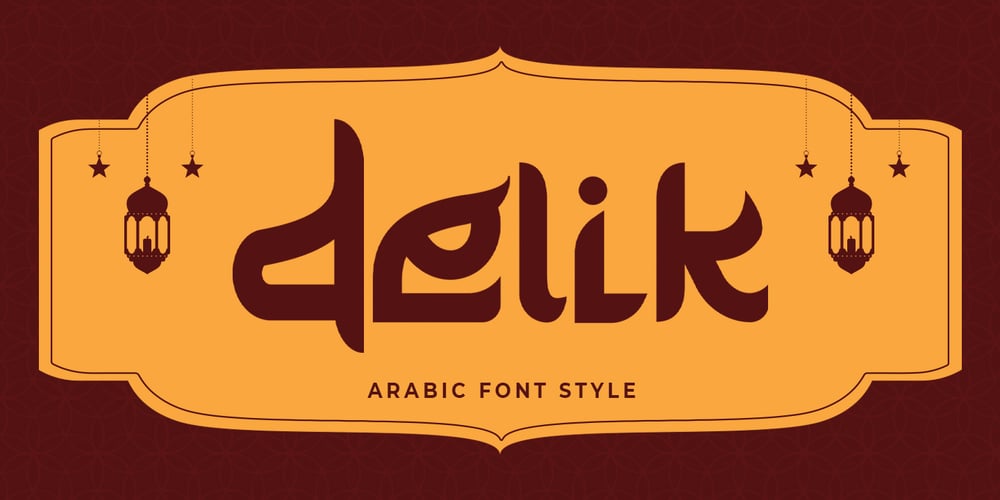
Delik Font Family was designed by Hilmius Akbar and published by Typefactory. Delik contains 1 styles and family package options. Delik is an interesting display font inspired by the style and feel of Arabic.This font is suitable for branding logos, Islamic themes, Ramadhan themes, and any other projects you can think of.